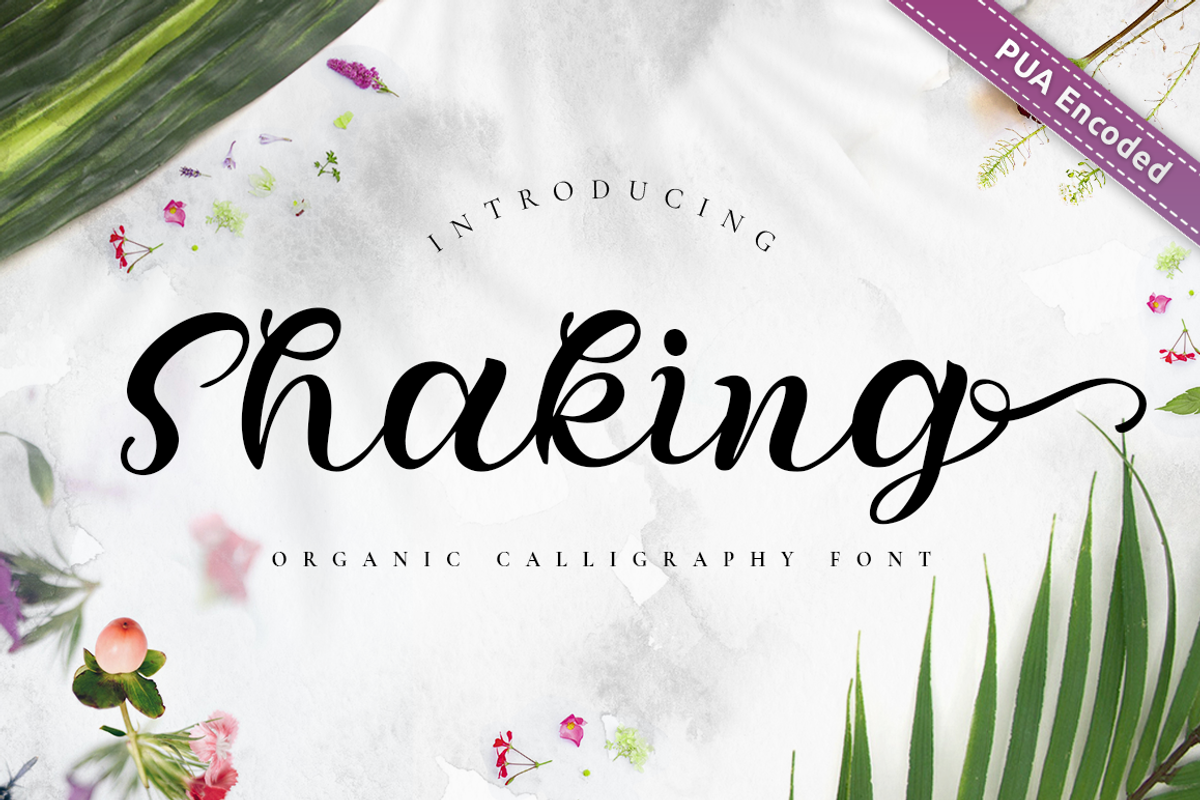
Shaking - Organic Calligraphy Font Free Download
The Shaking - Organic Calligraphy Font Free Download is a beautifully crafted handwritten font that brings an organic, flowing feel to any design. Perfect for creative projects like invitations, branding, and personal designs, this font adds a unique touch with its artistic strokes. Please note that for commercial use, a license must be purchased. You can download it for free for testing purposes.
With its natural, flowing calligraphy style, the Shaking - Organic Calligraphy Font Free Download creates an inviting and stylish vibe for your projects. Whether you're designing a logo, greeting card, or website, this font will add a personal and artistic flair to your work.